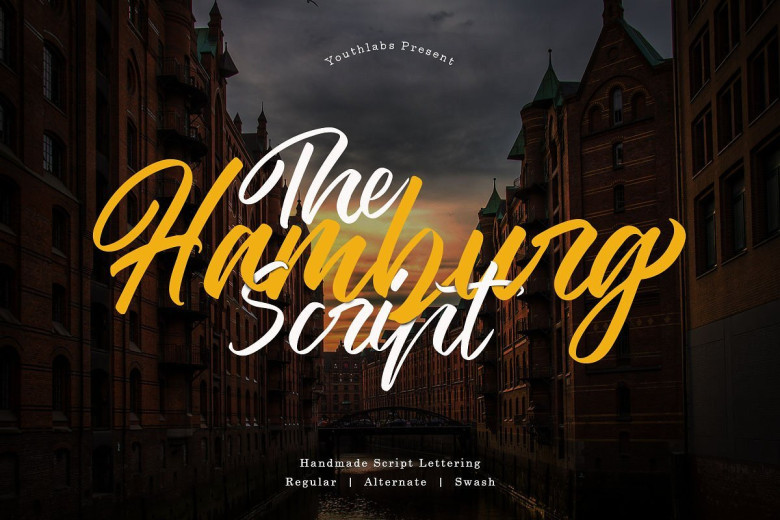
The Hamburg Script Font
This is a modern calligraphy typeface. This fonts also looks very sweet with simple style. Introducing Hamburg Font. The Hamburg Script Font inspired by traditional Script Calligraphy with brushpen, this font is totaly handmade with brush pen scratch. it would be great for any type of design.
The Hamburg would perfect for photography, watermark, social media posts, advertisements, logos & branding, invitation, product designs, label, stationery, wedding designs, product packaging, special events or anything that need handwriting taste